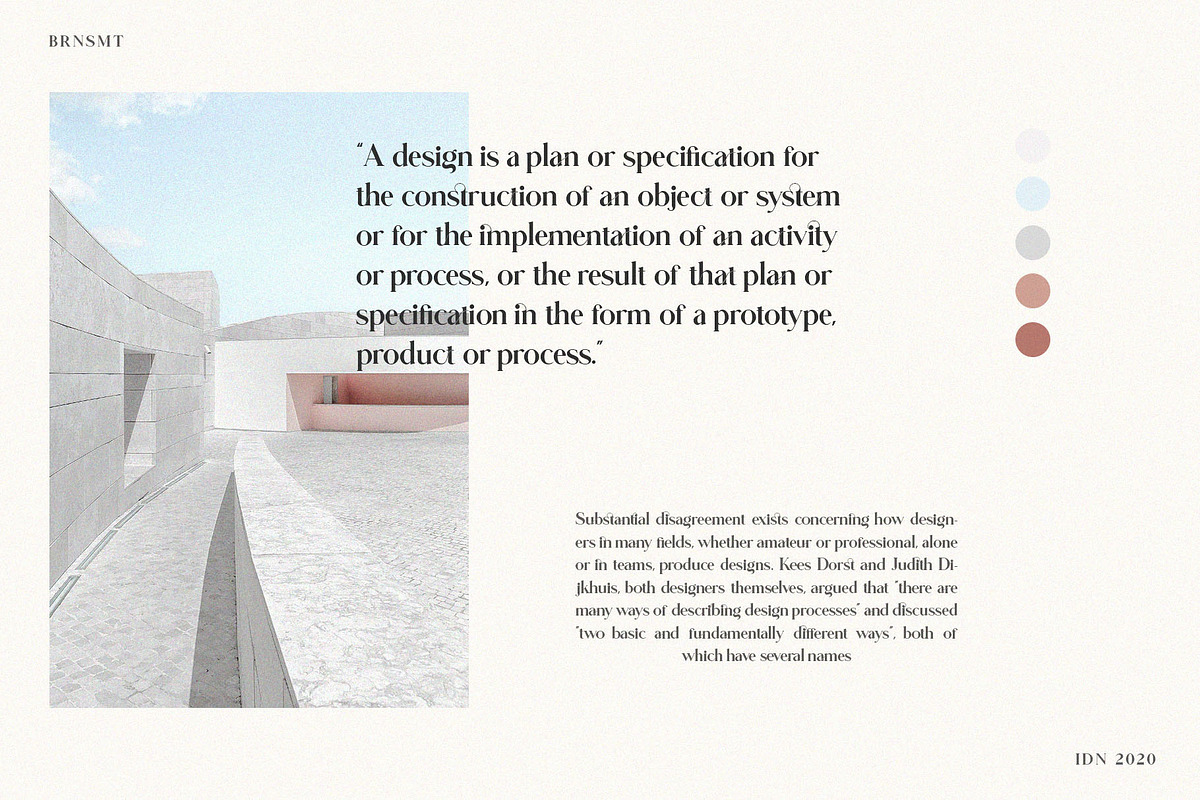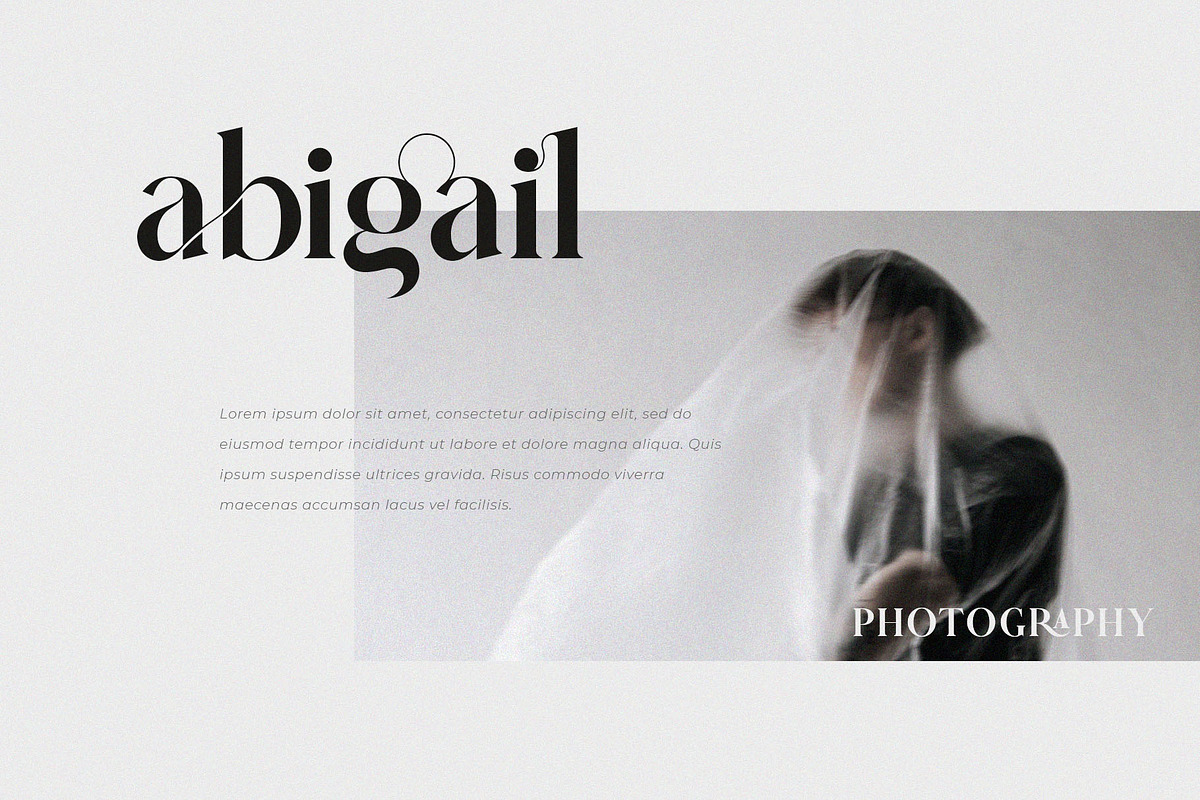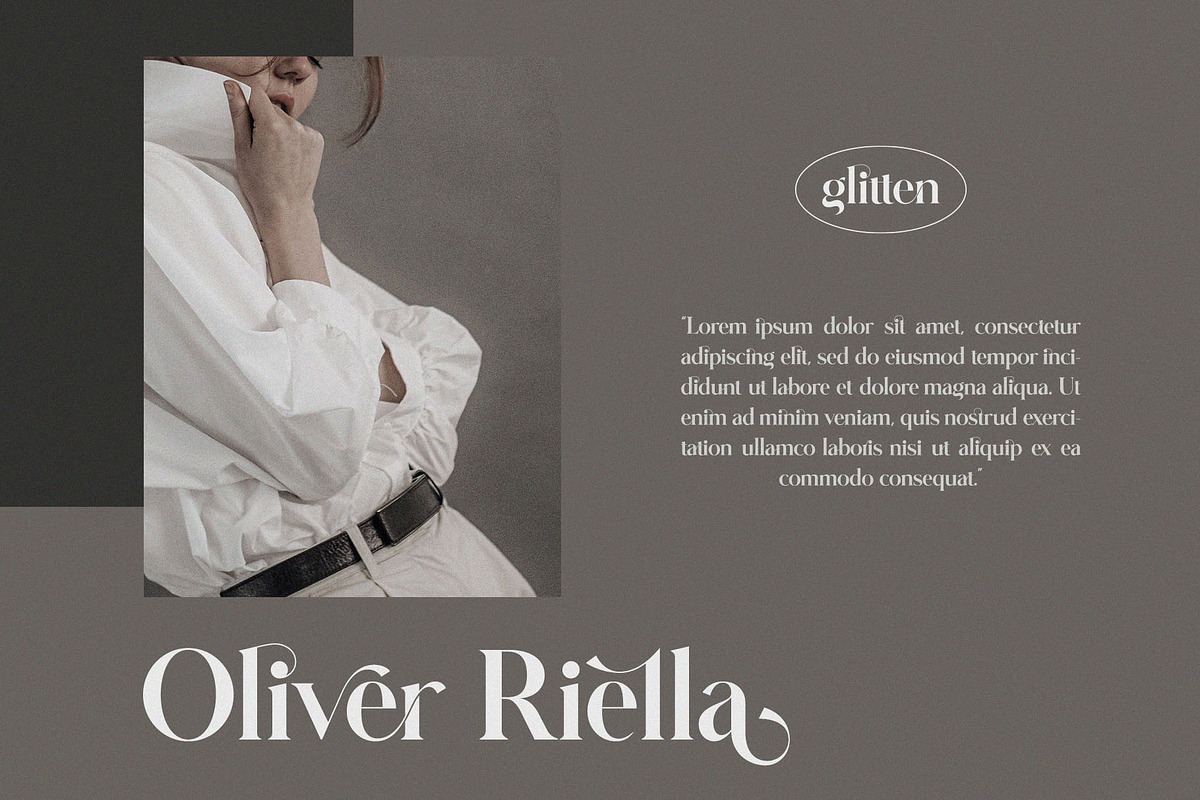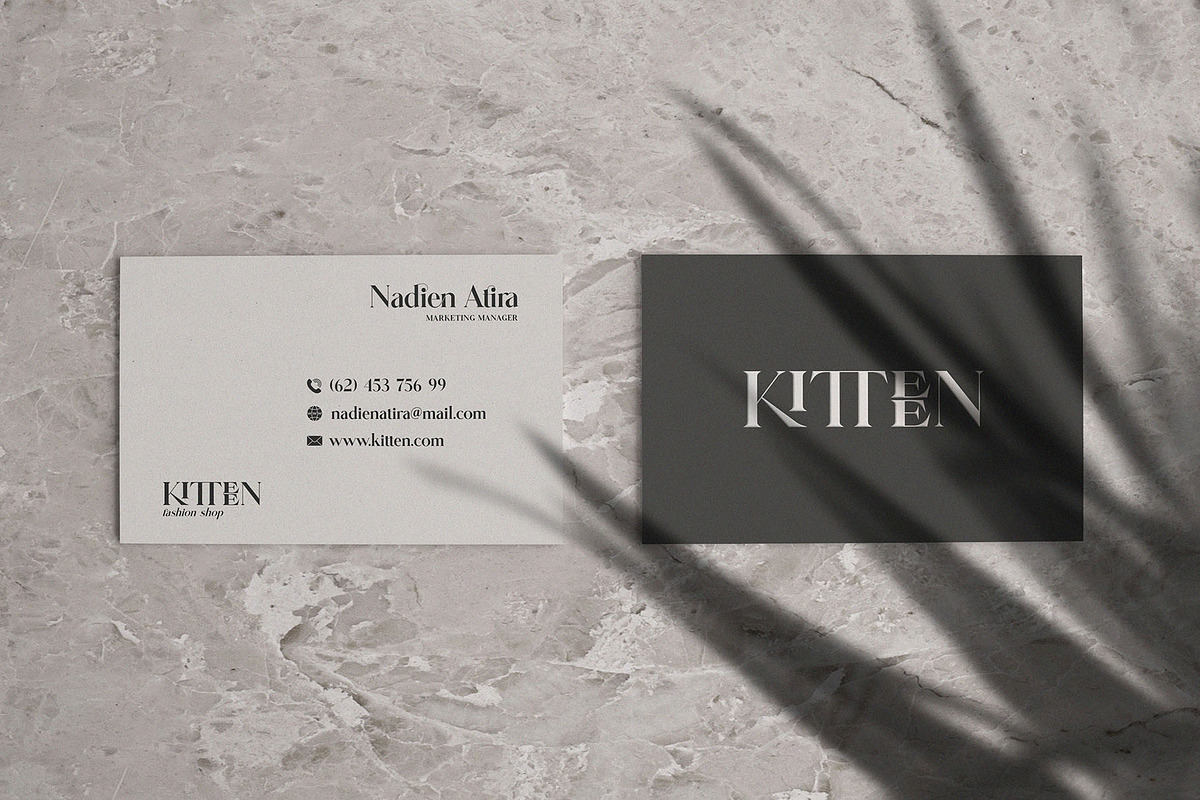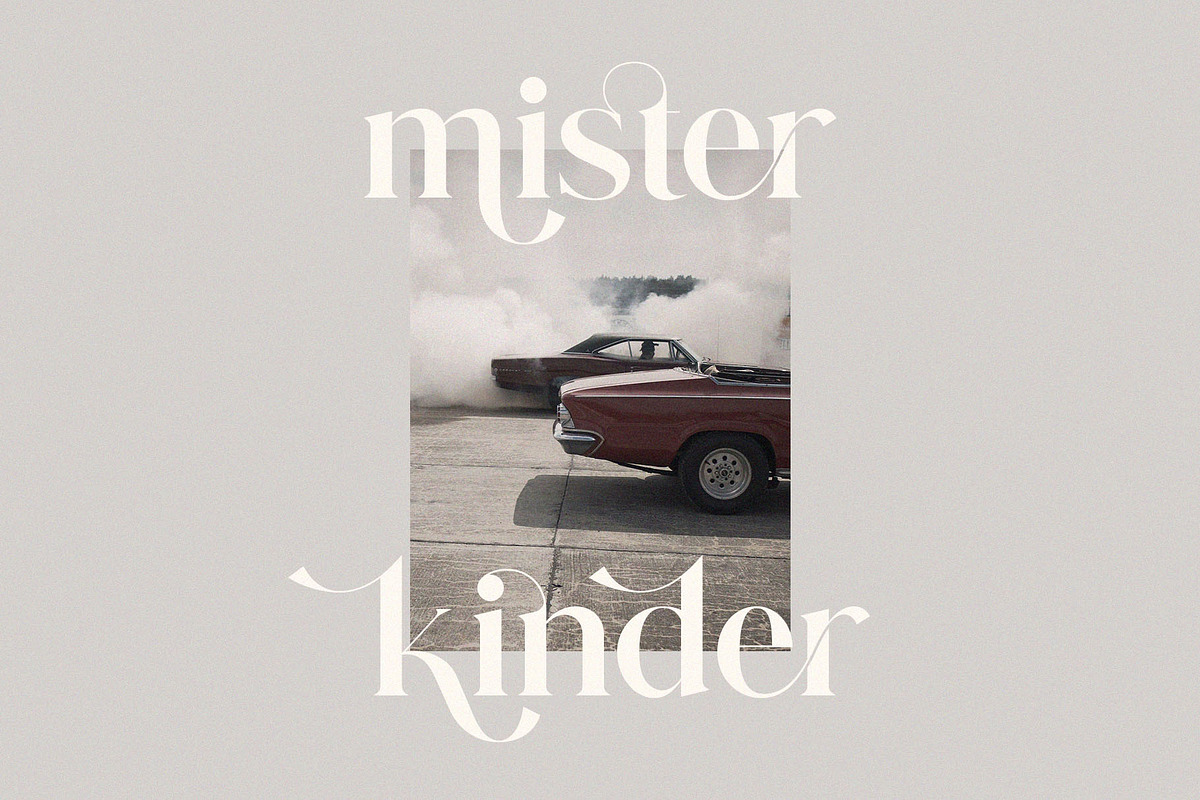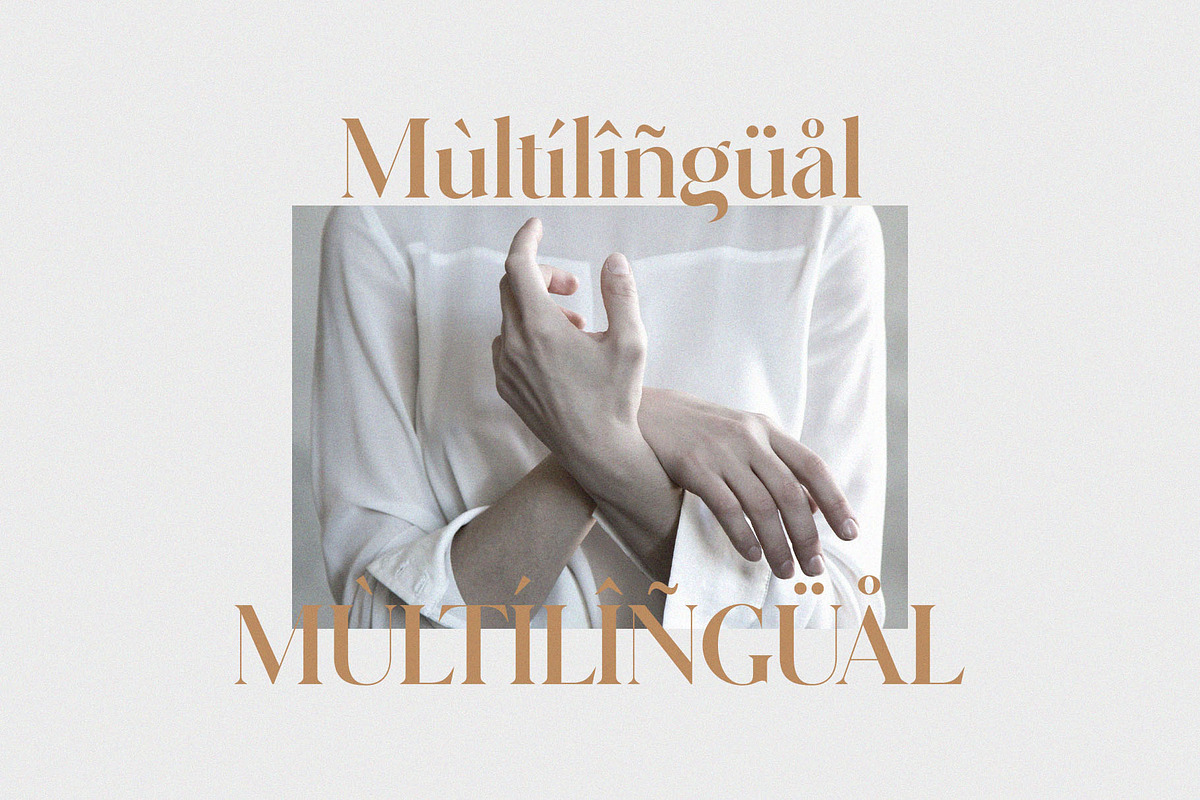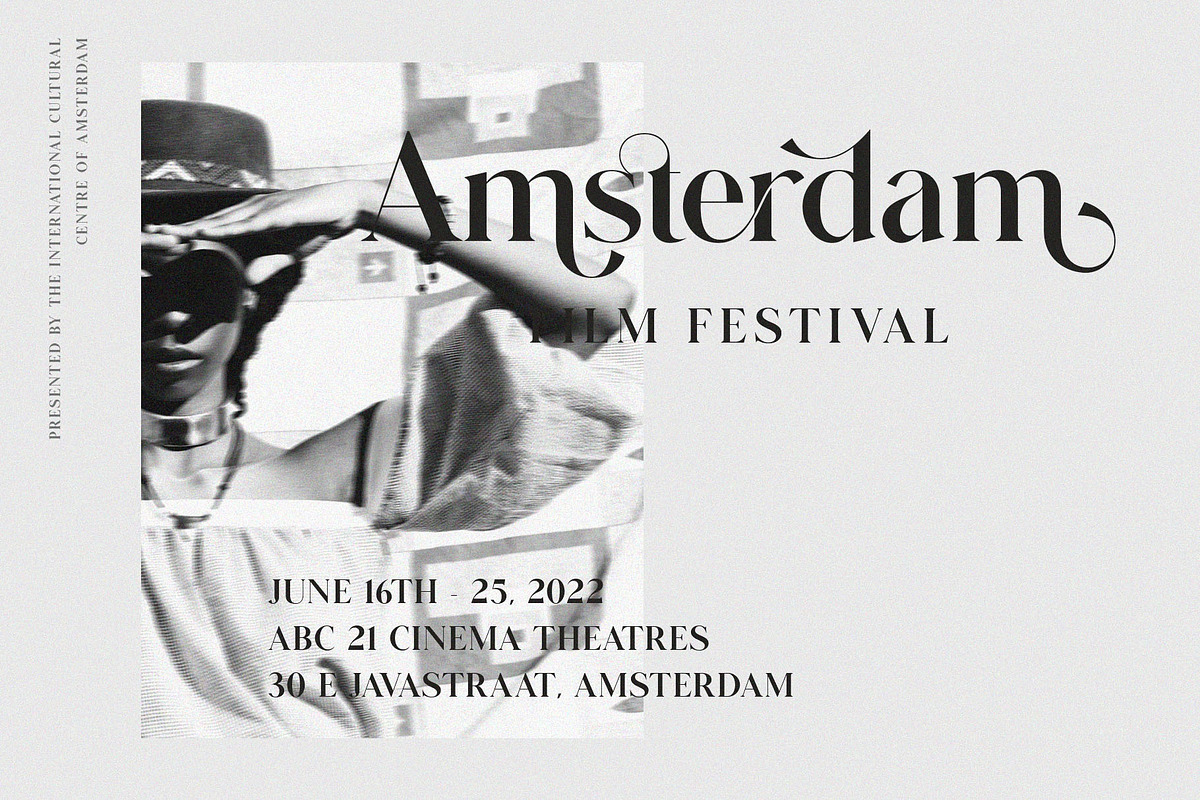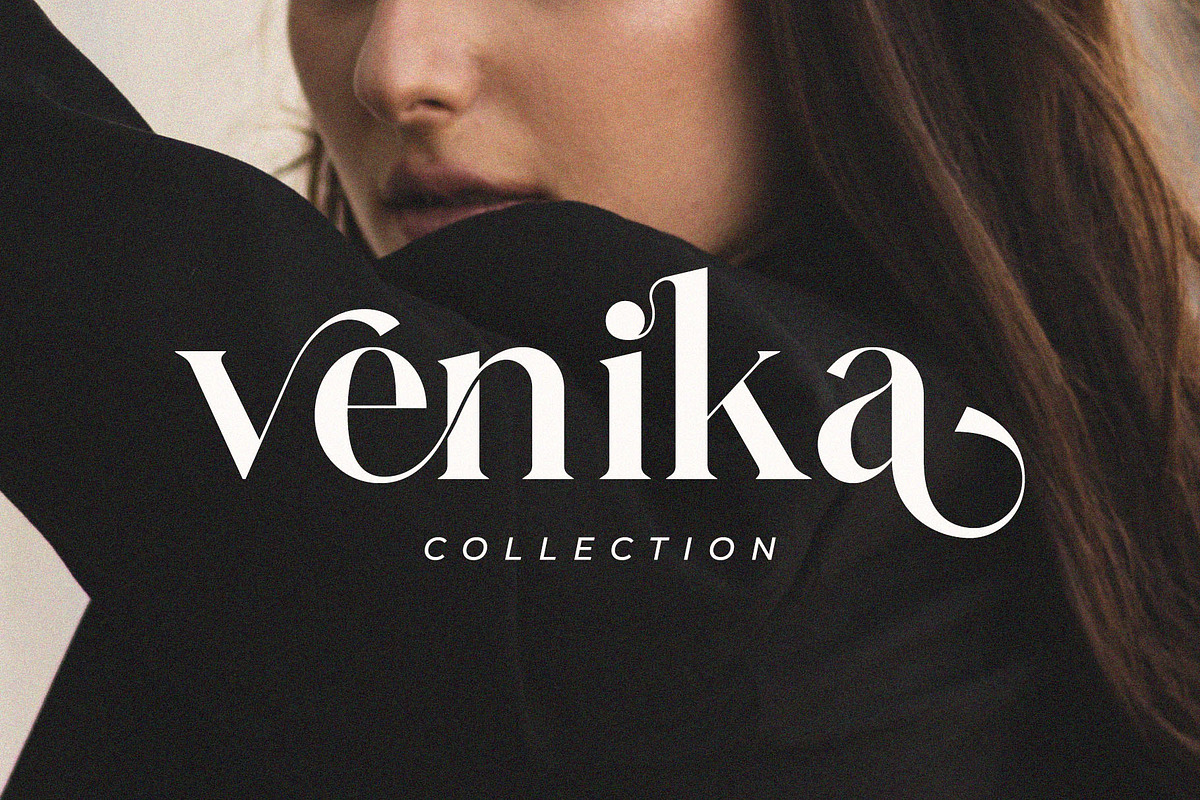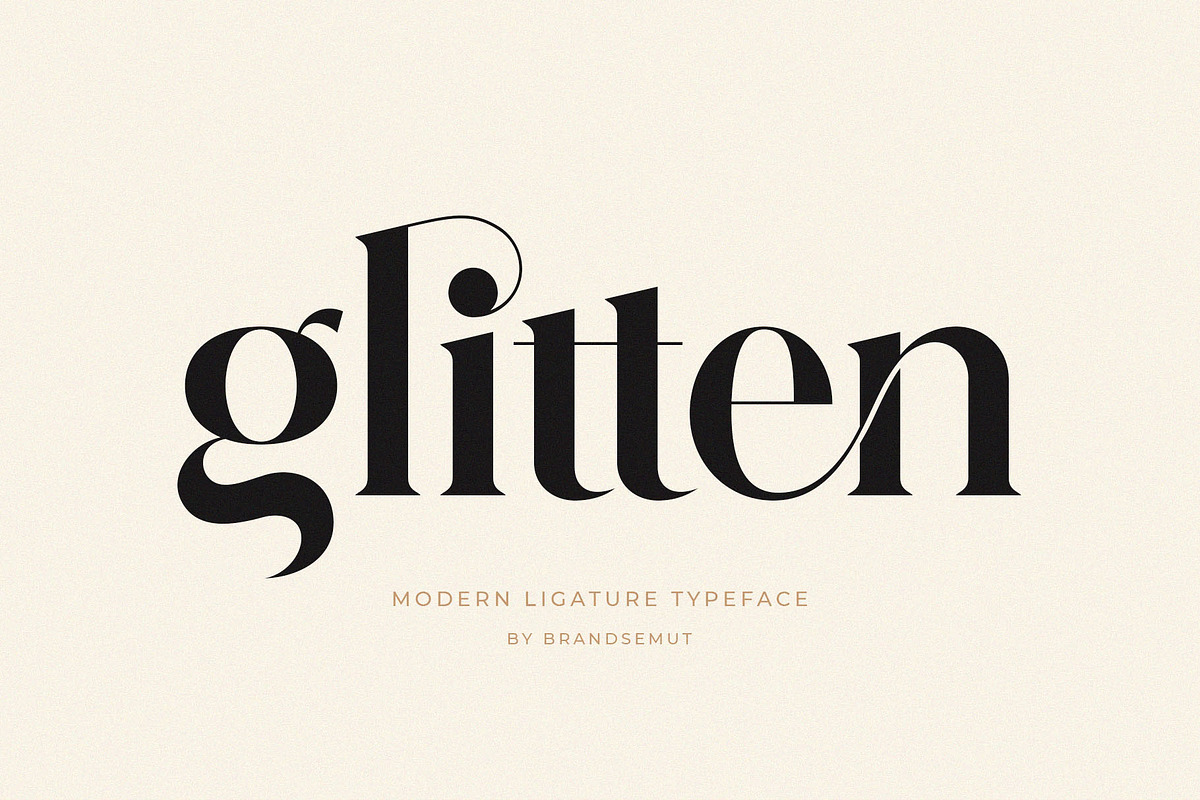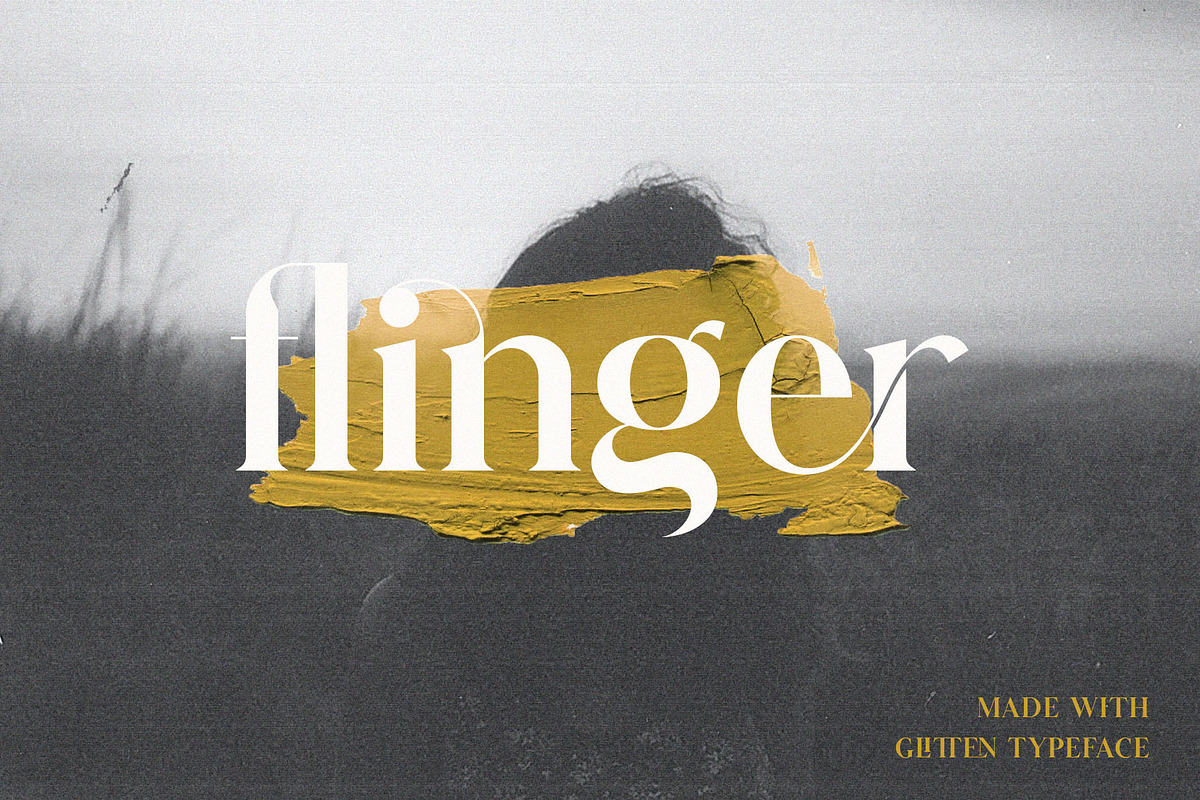
Glitten || Ligature Serif Font
Introducing the new Glitten Modern Ligature Serif!!! Glitten is a modern, elegant and classy serif typeface, best used as a display for headings, logos, branding, magazines, product packaging and invitations. Glitten come with clean lines and smooth curves give any project an extra touch of class.
Glitten was built with OpenType features and includes 103 ligatures, alternate, numbers, punctuation, and it also supports other languages.
I purchased a license so that I could use this on a website. The licensed versions of the file do not show the discretionary ligatures. A free version I downloaded works fine. I tried opening the font files in FontForge, and the web fonts do not have valid names within the file.
I fell in love with the preview of the font. However, when used in real life, for a word other than its name, it falls short and doesn't offer enough variations to make it work.
Beautiful font, just took a little while to figure out how to use the Ligatures. Can not use them in Canva, had to download Adobe to be able to use the font to its full effect.